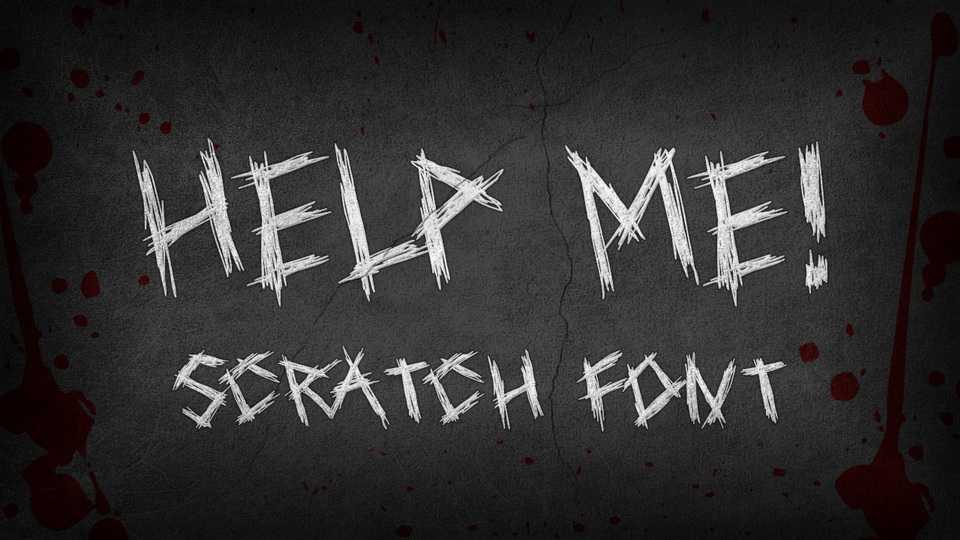
Download Help Me font, a creepy and scary scratched typeface. With its dark feel, Help Me font is ideal for horror movies, Halloween design, games, posters and album artworks.